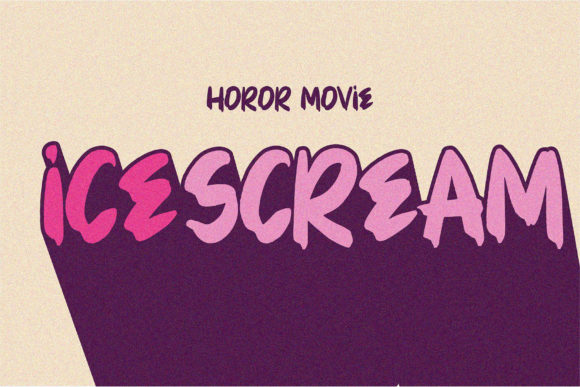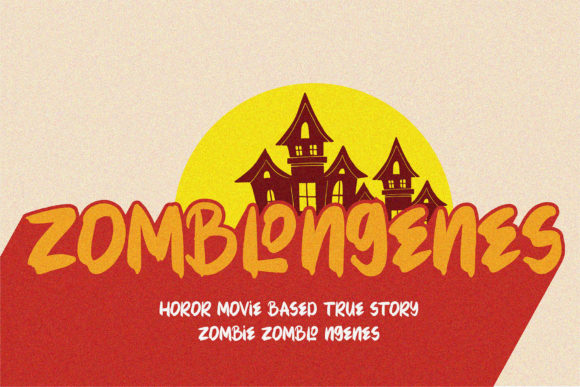
Introduction to Helowen Monsta Font
Spooky, Scary and Cool: Helowen Monsta is the perfect retro Halloween font with a fun feel.
Key Features of Helowen Monsta Font
Why Choose Helowen Monsta Font?
Helowen Monsta Font offers exceptional quality and versatility, making it a valuable addition to your design toolkit. Whether you’re creating for personal projects or commercial use, Helowen Monsta Font delivers professional results.